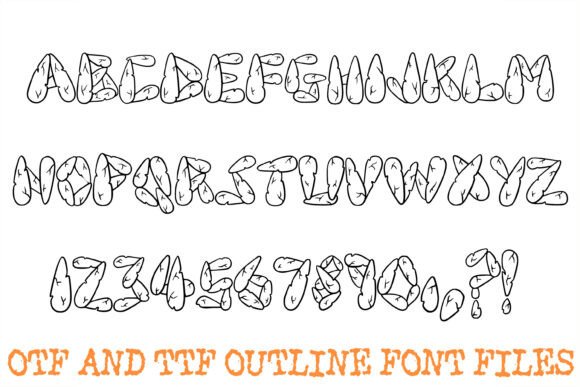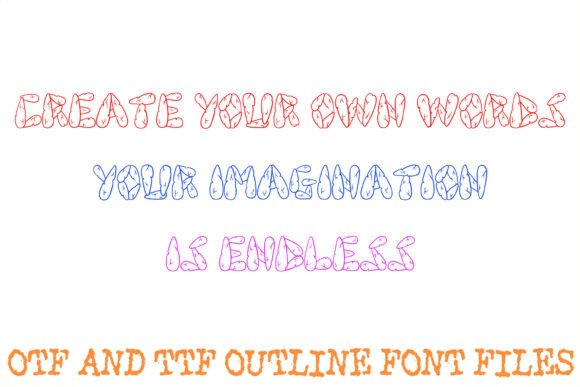
Introduction to Menhir Monolith Font
The Menhir Monolith Font is a rugged, hand-drawn display typeface that captures the ancient, towering presence of prehistoric standing stones.
Featuring heavy, boulder-like shapes and deep-etched fractures, this font is the perfect choice for adventure-themed branding, tabletop gaming assets, museum exhibits, and bold โstone-ageโ aesthetic designs Each character is meticulously crafted with a weighty, artisan feel, blending smooth weathered curves with jagged cracks that make your text appear as if it were hewn from solid granite.